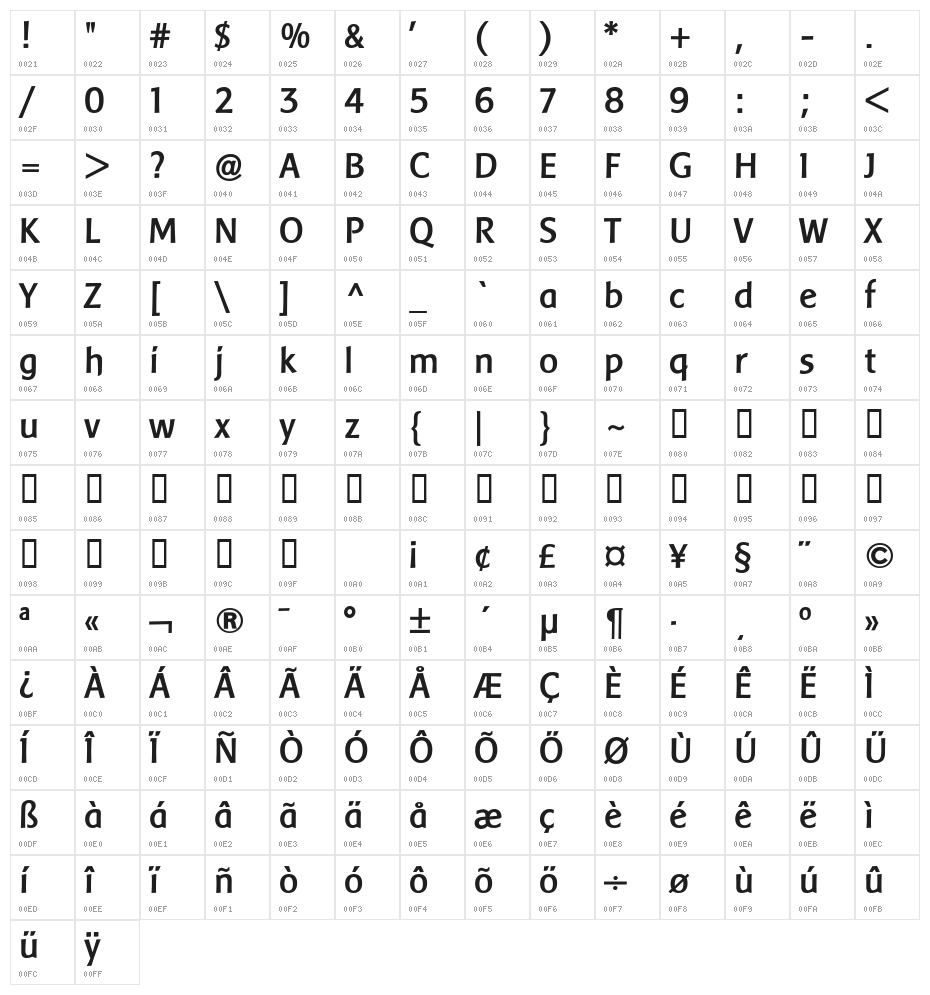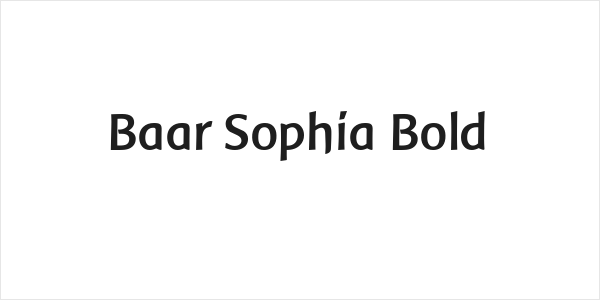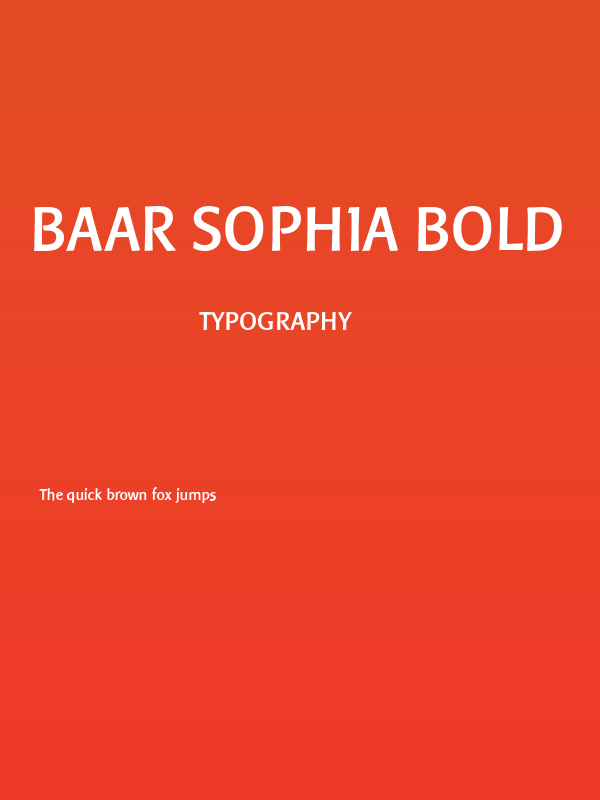
Baar Sophia Bold Font
Baar Sophia Bold Description
This font exhibits a clean and modern sans-serif style, characterized by its bold weight and uniform stroke width. The characters are well-proportioned, offering a balanced appearance that enhances readability. The uppercase letters are slightly taller than the lowercase, providing a clear distinction between the two. The numerals are straightforward and align well with the overall design, making them easy to read. Special characters are distinct and maintain the font's cohesive look. The font's simplicity and clarity make it versatile for various design applications.
Use CaseHeadlines, Logos, Digital content
Proposed ProjectsIdeal for branding, advertising, headlines, and digital content where clarity and impact are essential.